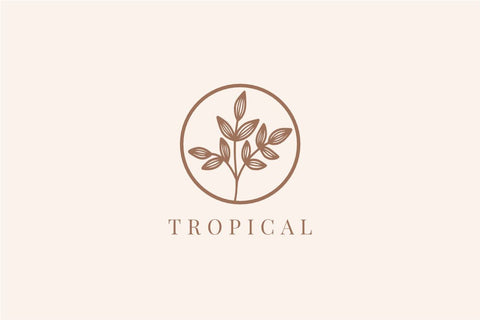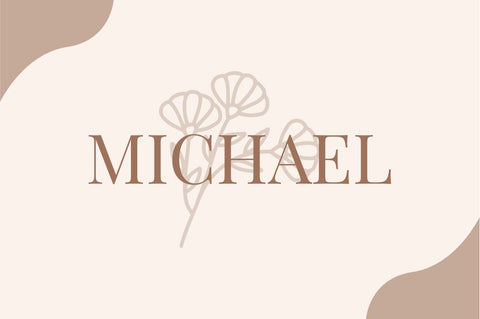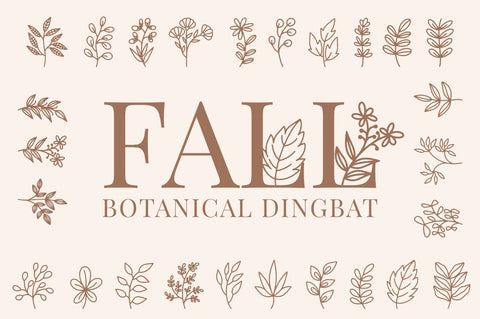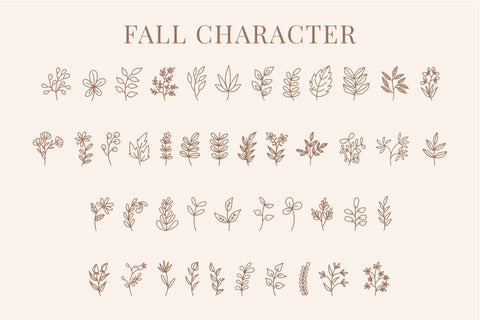
Fall - Branch Dingbat Font
Fall is a very unique and attractive Dingbat font. with an elegant fall-themed glyph. This font is perfect for logos, branding, ornaments, decorations, symbols, etc.